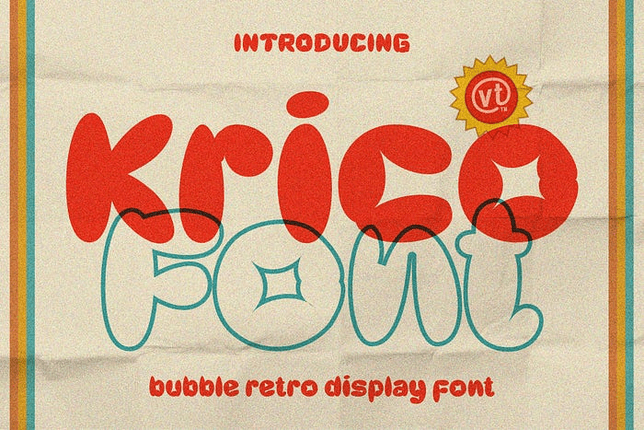
Weekly Font Fix – Krico Font
KRICO
- Type: Retro Bubble Font
- Description: Fun and attractive bubble style, perfect for retro and children’s themes.